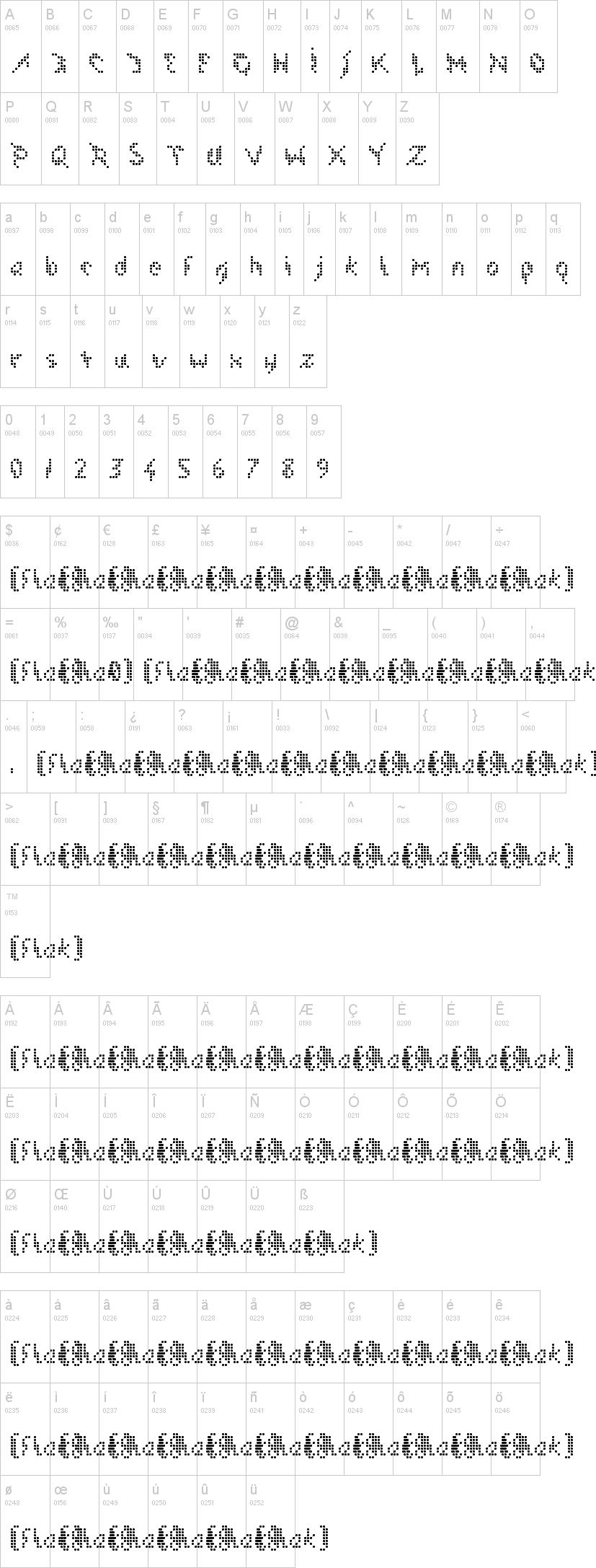
Шрифт ISL Flak
created circa 1997-1998
Inspired by the designers republic font, dr.no
at the time, I didn't realize coreldraw had flattened out the curves some, so instead of getting a great nice circle that joins smoothly to another one, you kinda get this fat round square. nasty, and I didn't bother to fix it. I made two other versions of this font but I'm not sure they are worth uploading. They are floating around the net, that's how I found them after not having the files for over 10 years.
Inspired by the designers republic font, dr.no
at the time, I didn't realize coreldraw had flattened out the curves some, so instead of getting a great nice circle that joins smoothly to another one, you kinda get this fat round square. nasty, and I didn't bother to fix it. I made two other versions of this font but I'm not sure they are worth uploading. They are floating around the net, that's how I found them after not having the files for over 10 years.